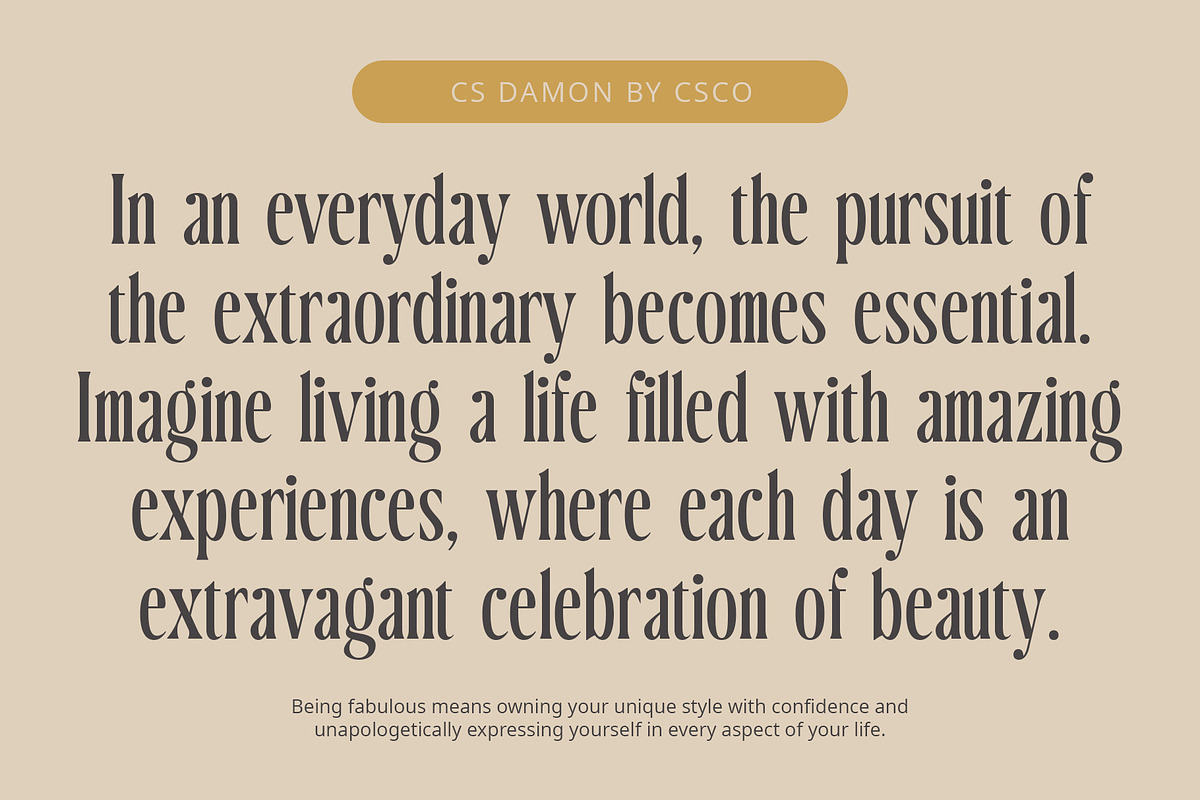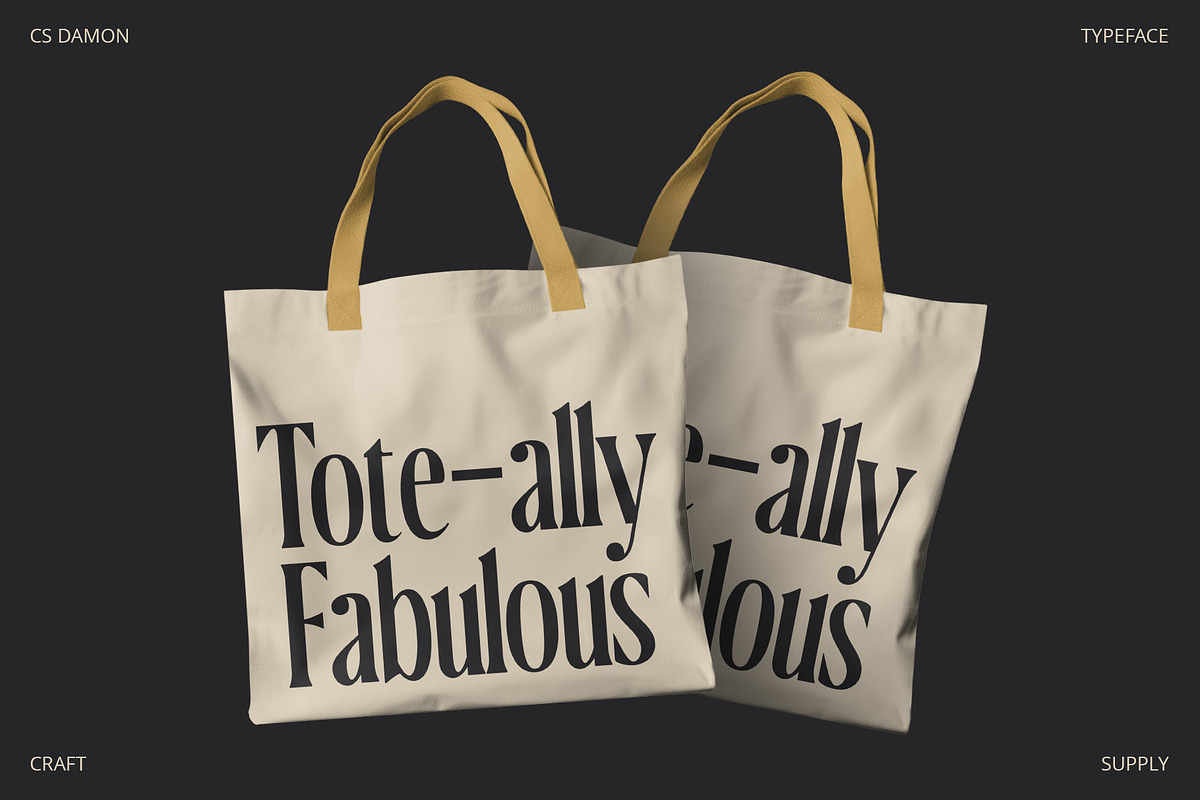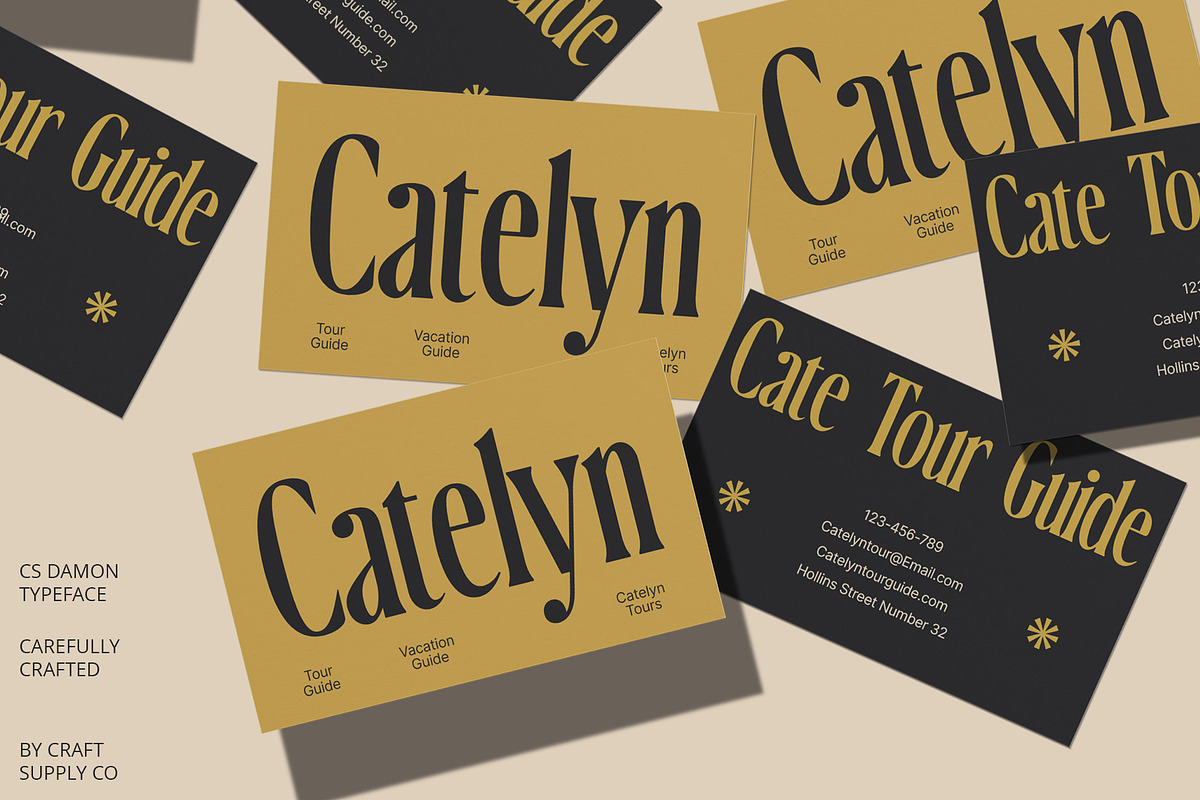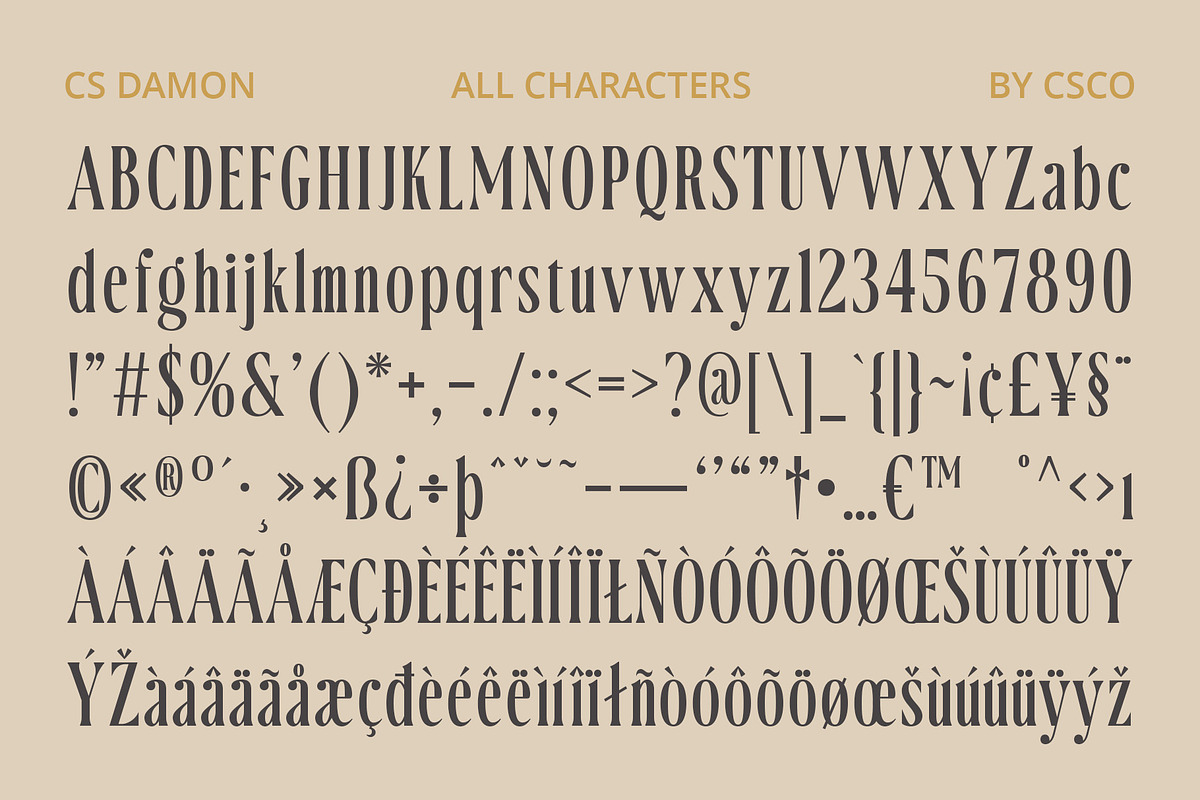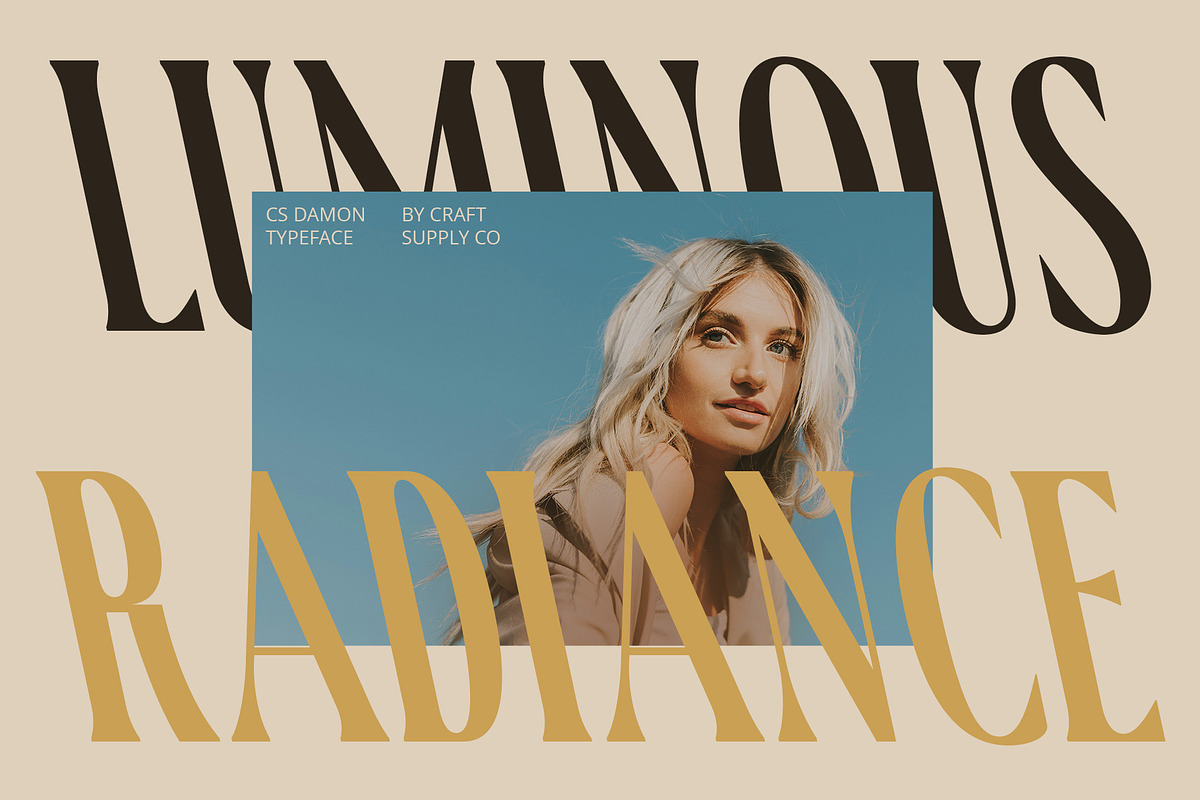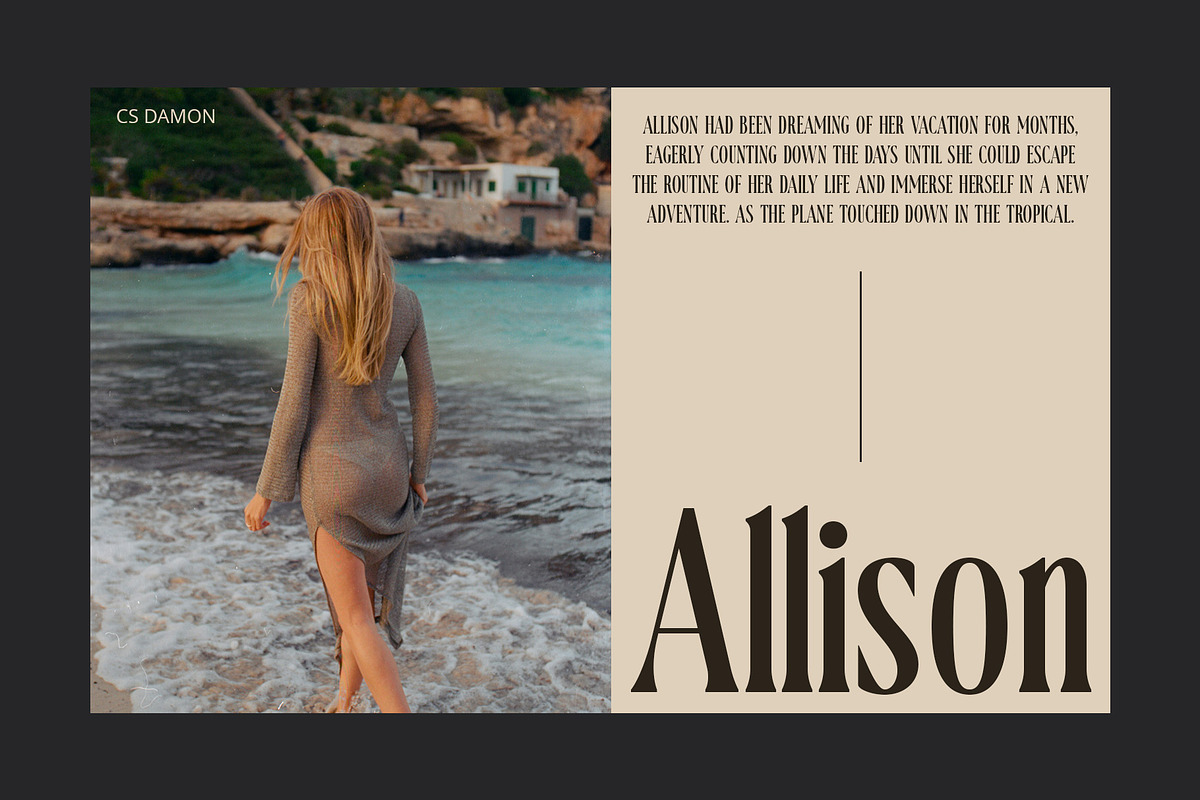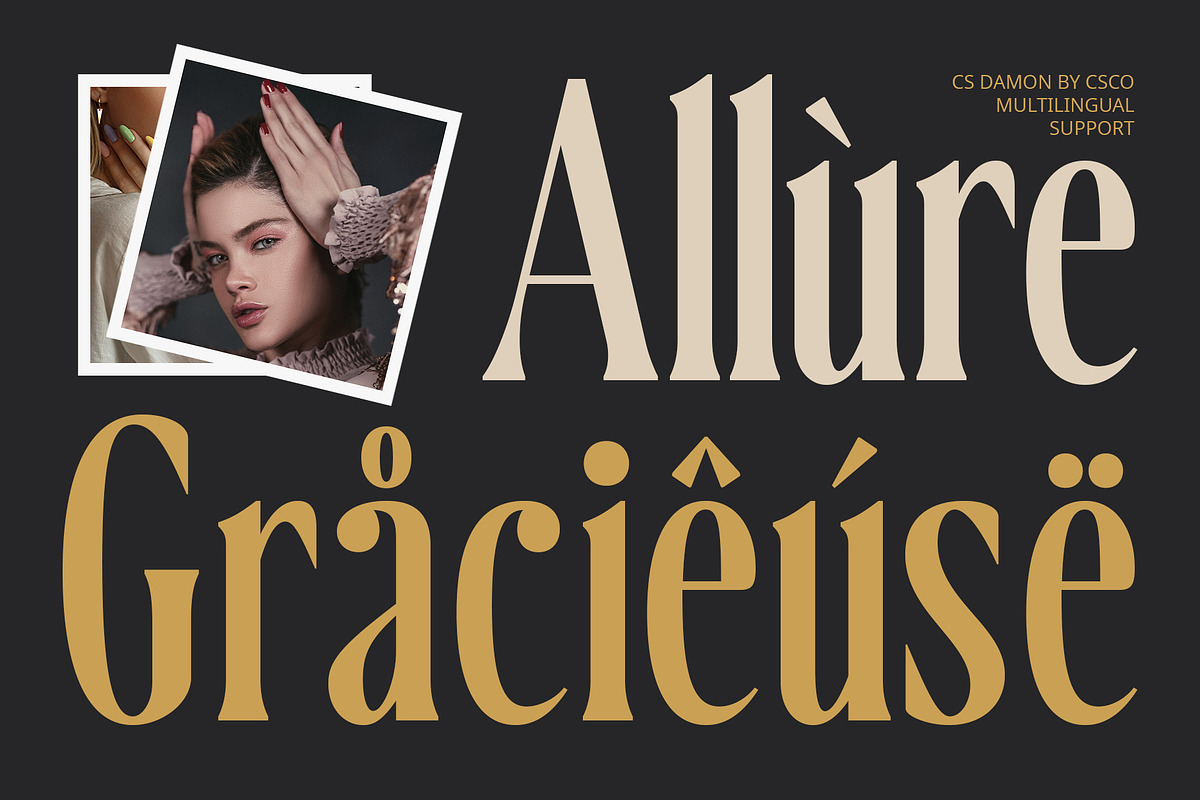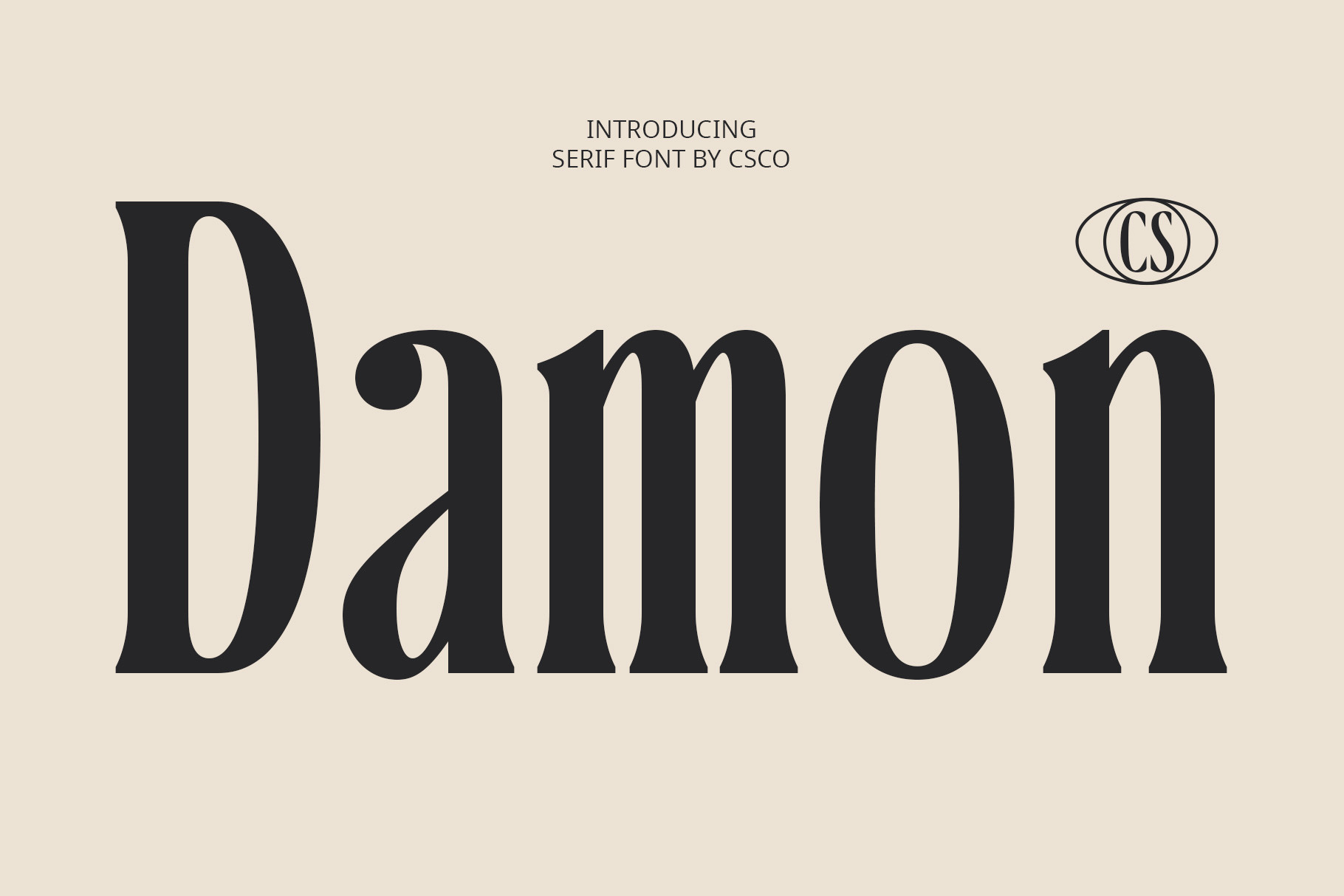
CS Damon – Condensed Font
CS Damon: Condensed Serif Font
Classic Elegance with Space-Efficient Design
Discover CS Damon, a classic condensed serif font that seamlessly blends timeless elegance with a space-efficient design. Featuring narrow letterforms and refined serifs, this font is perfect for projects that require a touch of tradition while maximizing space.
Timeless Style for Vintage-Inspired Projects
CS Damon’s classic style makes it an excellent choice for vintage-inspired branding, editorial layouts, and any design needing a sophisticated, space-saving typeface. Its elegant and narrow design brings a sense of refinement to your projects.
Ideal for Headlines, Invitations, and Historical Documents
Whether used for magazine headlines, elegant invitations, or historical documents, CS Damon adds a refined, traditional flair. Its condensed form ensures that you make the most of limited space without sacrificing style.
Elevate Your Design with CS Damon
Choose CS Damon to bring a touch of classic sophistication to your designs. Its timeless elegance and space-efficient design make it ideal for any project that values both tradition and practicality.